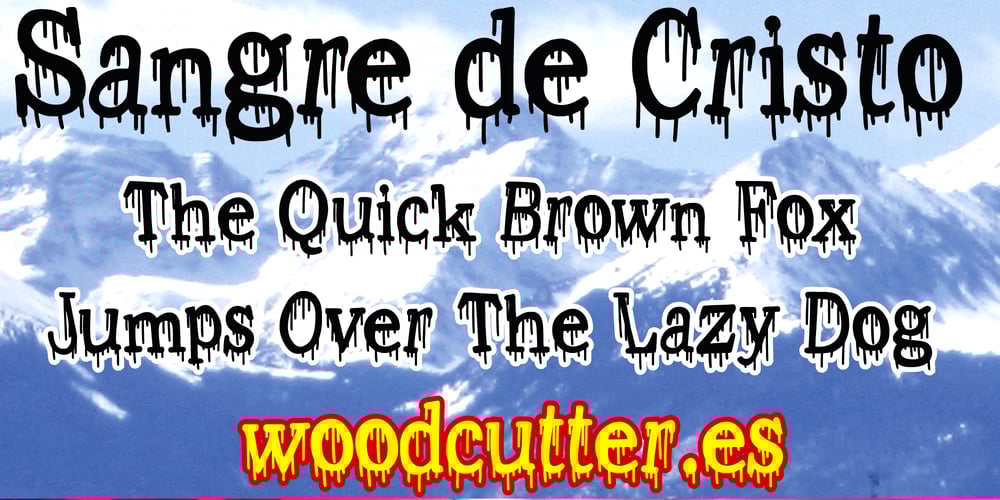
Sangre de Cristo Font Family was designed by Jordi Manero and published by Woodcutter. Sangre de Cristo contains 1 styles and family package options. “Sangre de Cristo” is a bloody font featuring drops of blood falling from each letter, creating a striking and macabre visual effect. This typeface includes uppercase, lowercase, and accented characters, making it versatile for any project requiring a touch of horror and drama. Perfect for horror movie titles, Halloween event posters, or any design needing to evoke a sense of fear and dread. “Sangre de Cristo” ensures your message won’t go unnoticed, adding a sinister and chilling touch to your graphic creations